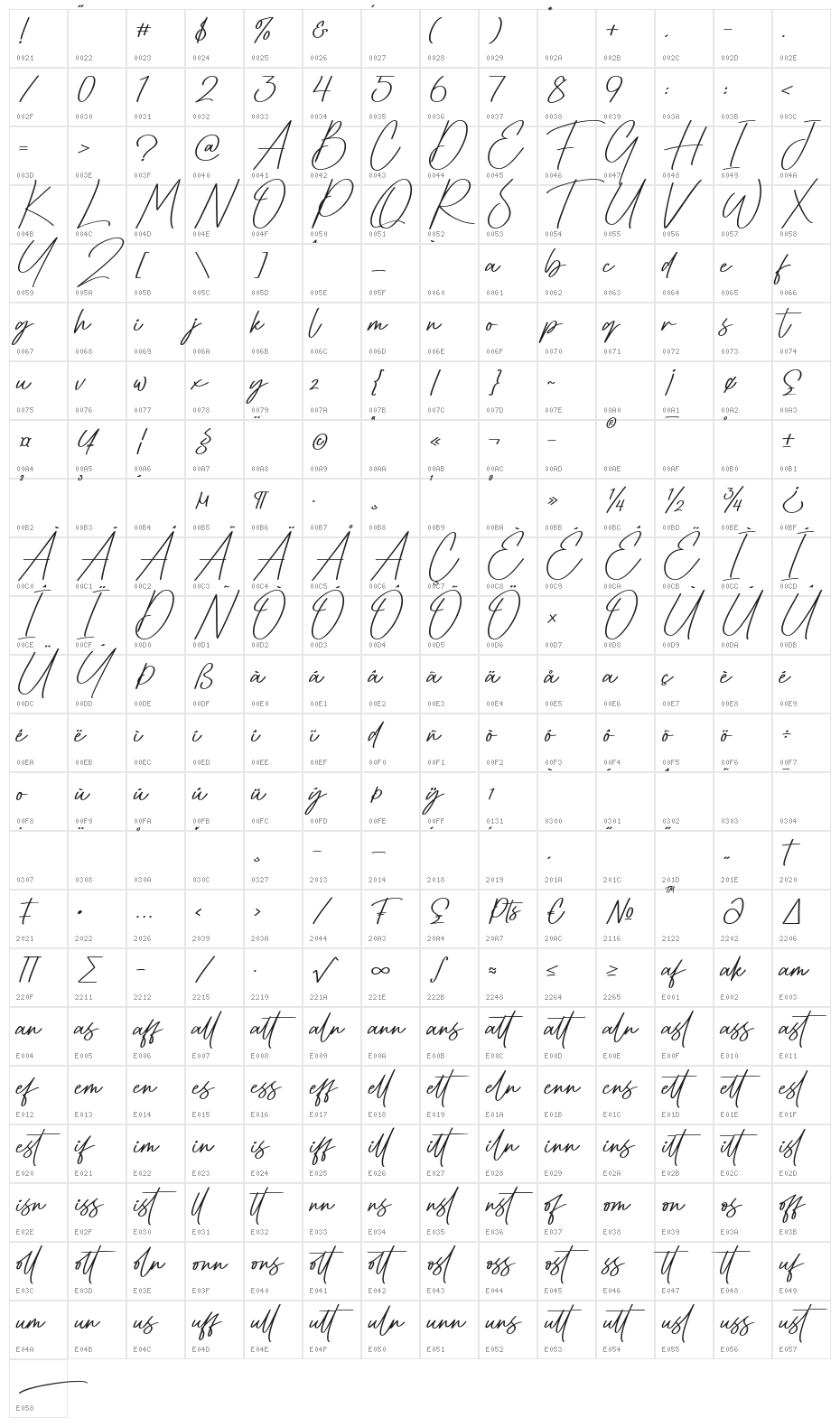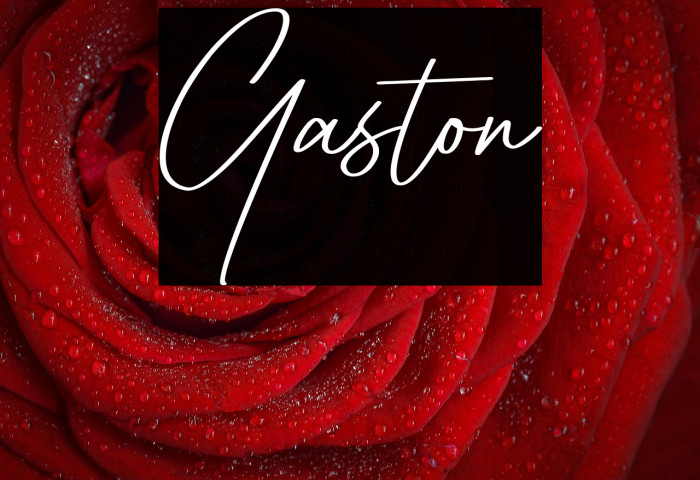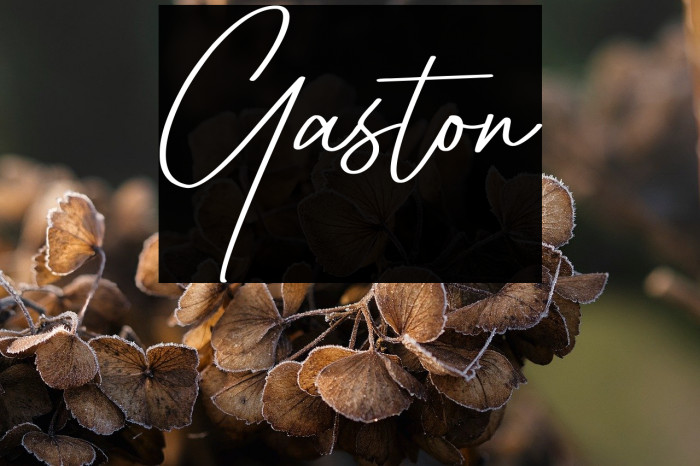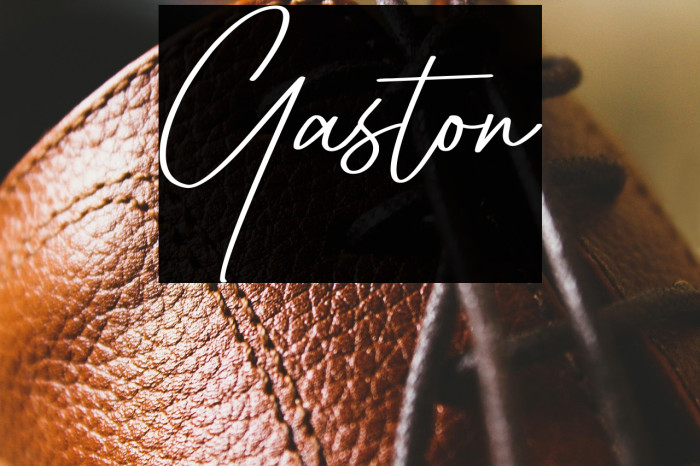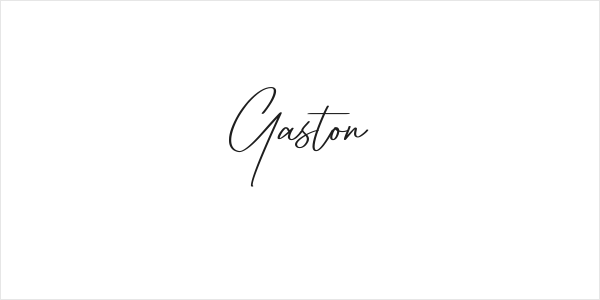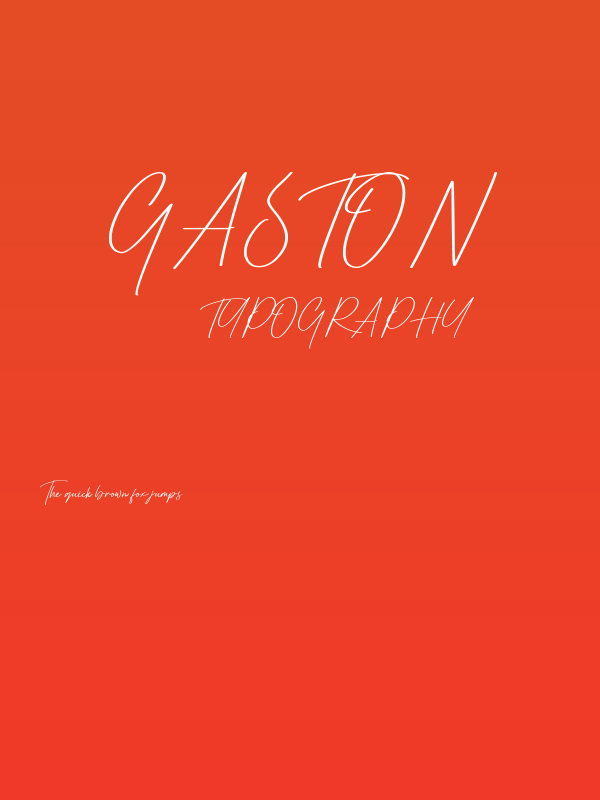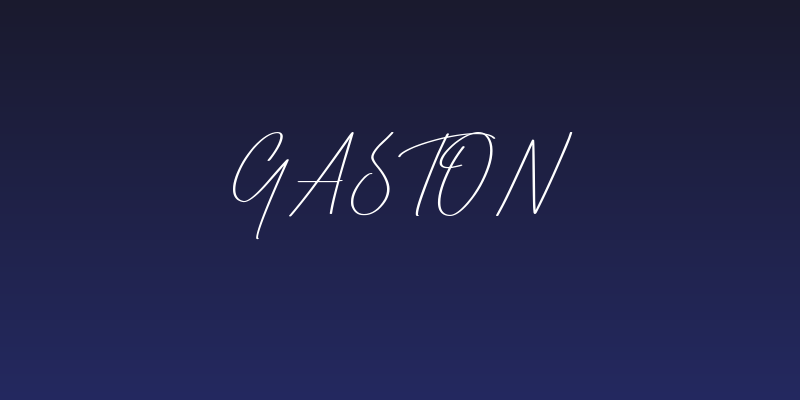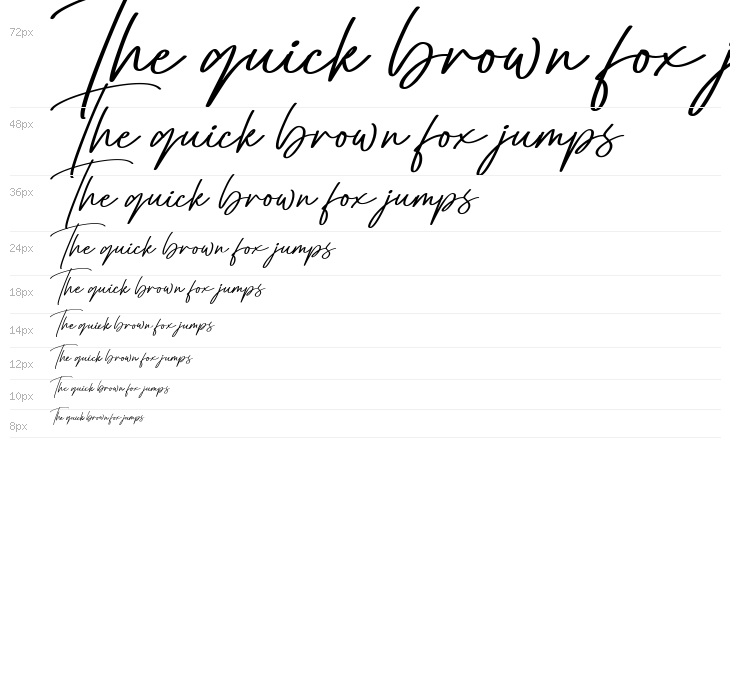
Gaston Font
Gaston Description
A stylish, handwritten script font with a modern and elegant feel, featuring smooth curves and a natural flow.
| Use Case | Logos, Headlines |
| Proposed Projects | Invitations, branding, social media graphics. |